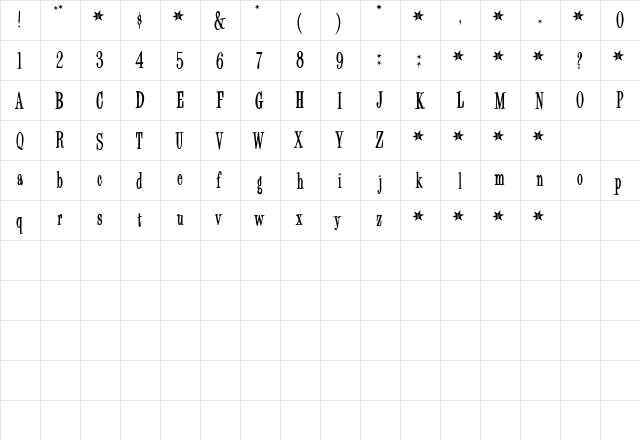
Hipster Regular
Design Context for Hipster Typeface
Hipster offers clean, dependable letterforms without strong stylistic allegiance, making it a practical choice for designers who need flexibility.
Pro Tip: Use Hipster in both headline and body roles to test its range before committing to a single application.